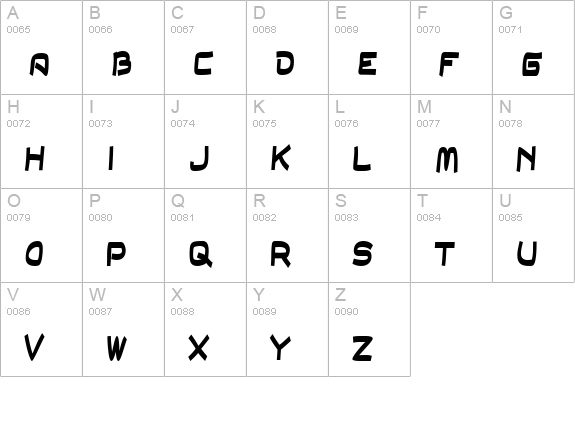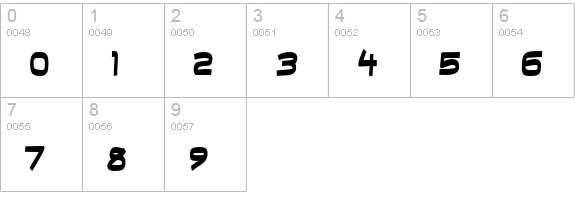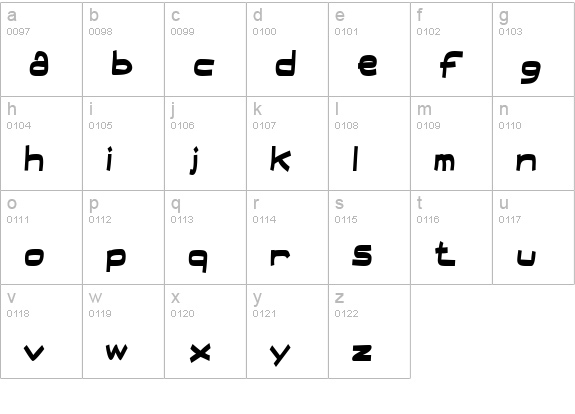
Field Day Filter Font Details
Field Day Filter font is a modern and stylish typeface that exudes creativity and playfulness. With its unique design and quirky details, this font is perfect for adding a touch of whimsy to your projects. The Field Day Filter font is versatile and can be used for various design purposes, making it a great choice for branding, advertising, and more. What's even better is that the Field Day Filter font is available for free download at FontsMarket.com. So, whether you're a designer looking to add a fun element to your work or simply someone who appreciates high-quality fonts, be sure to check out Field Day Filter and unleash your creativity today!